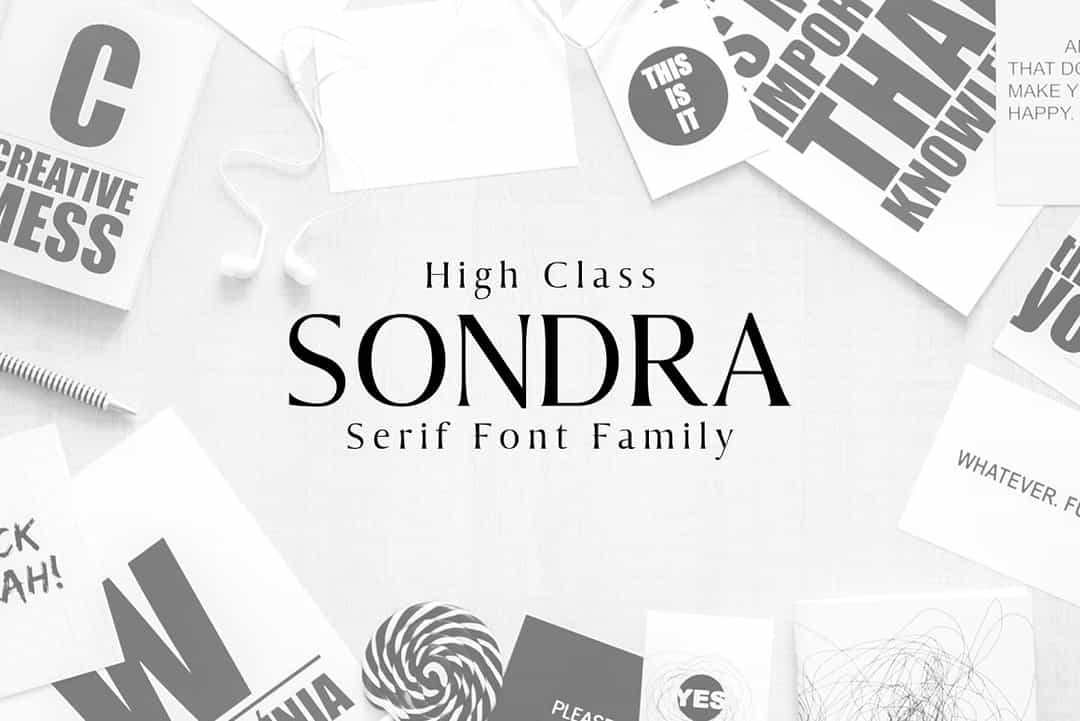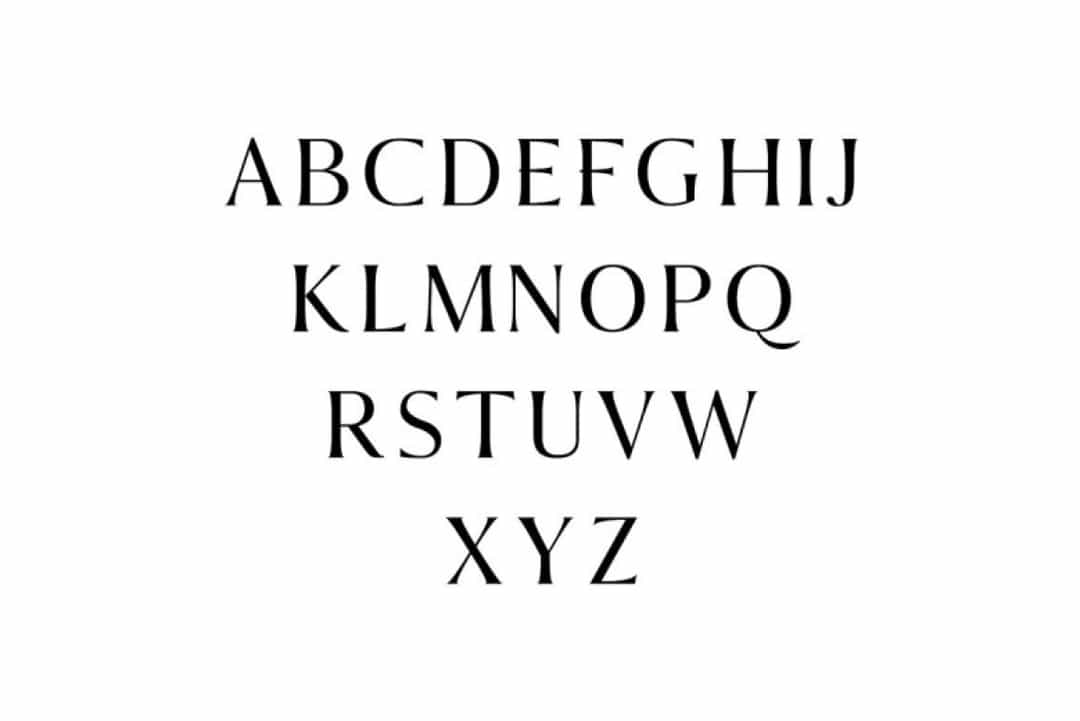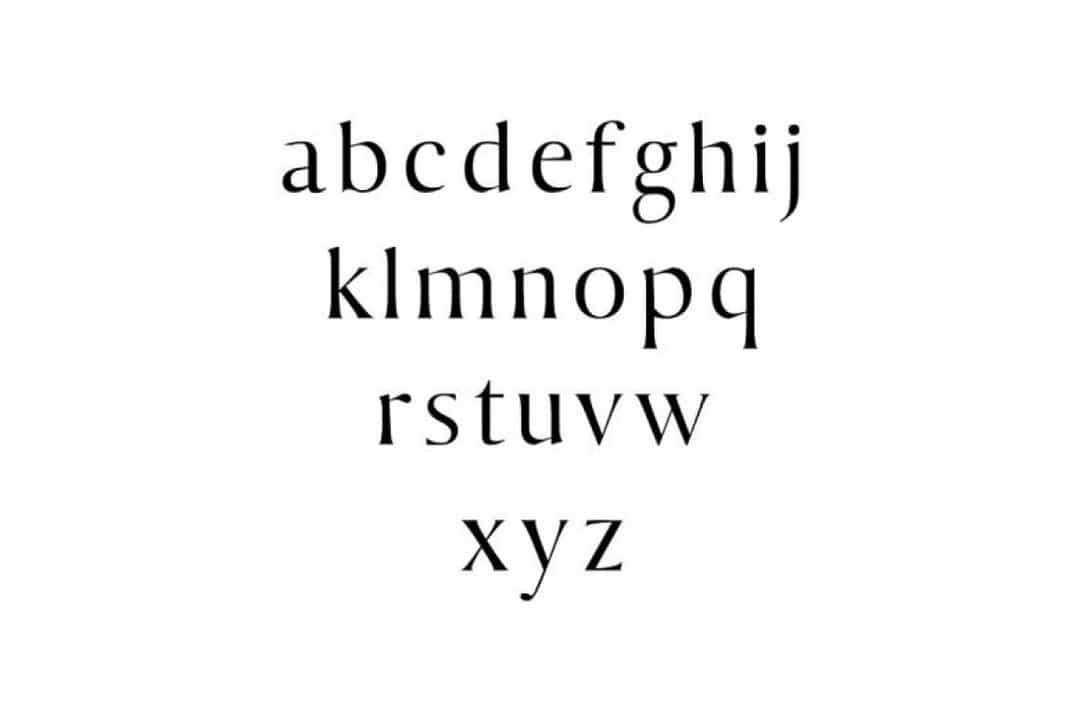
Sondra is minimalist and beautiful serif font family of 6 weights and it features unique and modern serif look and feel. Perfect for gorgeous logos & titles, layouts & content, or large & small scale,